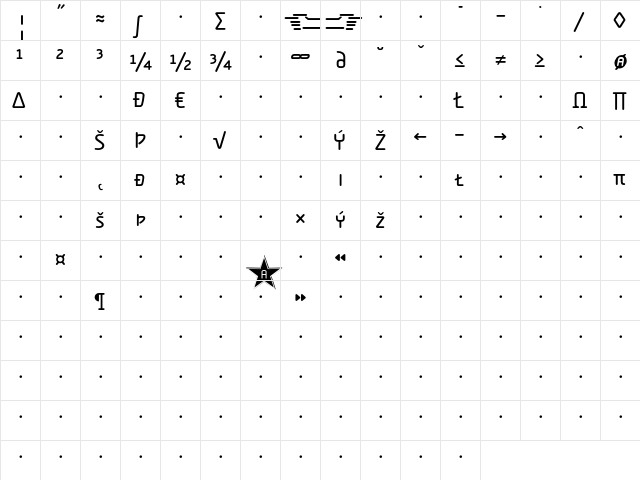
Alega-NormalSmallCapsExpert Regular
| Foundry | Siegfried Rueckel, published by FontShop International for the FontFont library |
Design Context for Alega-NormalSmallCapsExpert Typeface
Alega-NormalSmallCapsExpert is a composed and adaptable typeface that performs quietly and consistently across a wide range of design contexts.